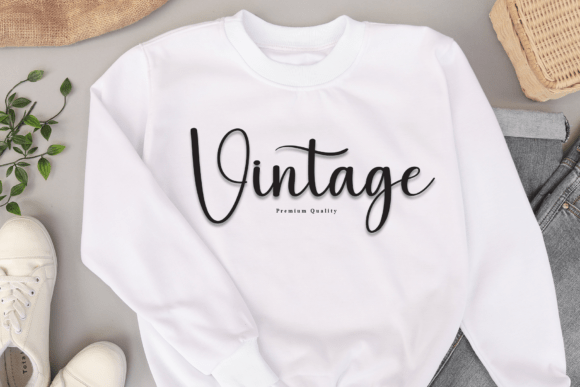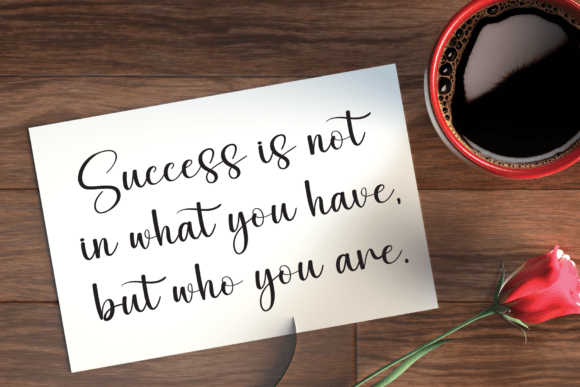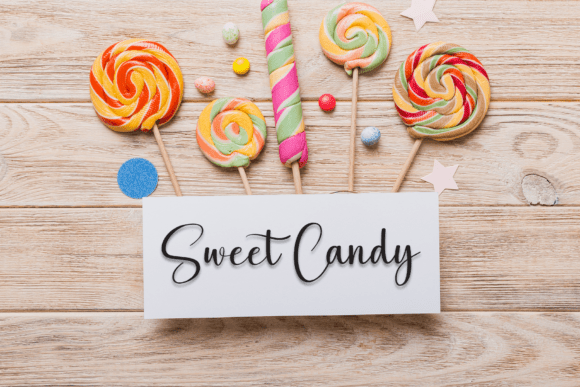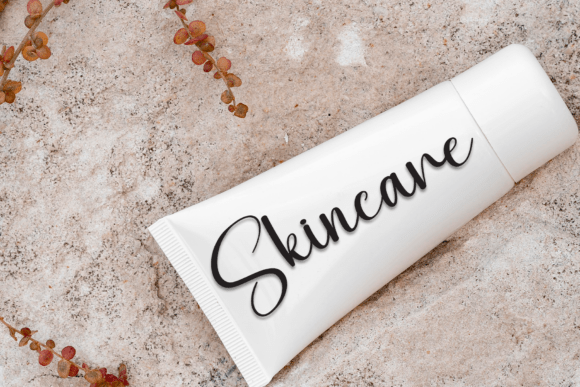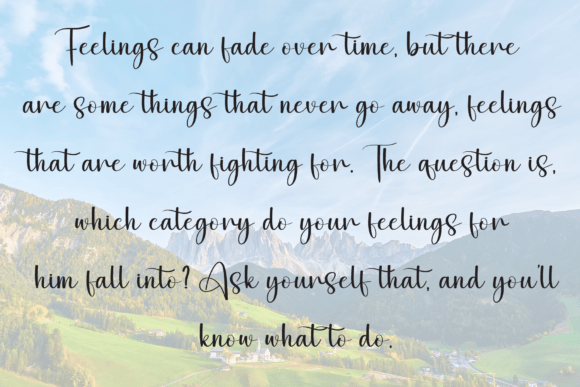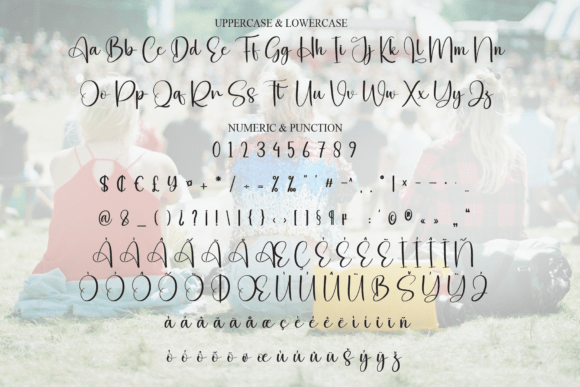
The Perfect Blend of Style and Playfulness: Bestival Font
Have you ever been working on a design project and suddenly, the perfect font pops into your mind? That’s exactly what happened to me when I stumbled upon the Bestival Font. It was love at first sight – its fluid strokes and charming curves seemed to dance on the page, making me want to use it in every project I had in the works.
Bestival Font is a stylish handwritten script font that effortlessly blends modern elegance with a playful touch. Whether you’re designing a logo, packaging, or invitation, this typeface adds a personal feel to your work, making it truly special. As a designer, you know how valuable it is to have a font that can convey warmth, sophistication, and creativity – and that’s exactly what the Bestival Font delivers.
Bestival Font Key Features
- Unique Characteristics: The font features a distinctive, hand-drawn aesthetic with intricate details and a bold, playful feel.
- Font Style: The font comes in a range of styles, including regular, bold, italic, and bold italic, offering flexibility for designers.
Bestival Font Review
Overall, I’m impressed with the Bestival Font. It’s a beautiful, elegant script font that’s perfect for adding a touch of sophistication to your designs. ✨
- Unique and stylish design: Bestival Font has a distinct, cursive feel that sets it apart from other fonts.
- High-quality rendering: The font is well-made and looks great at various sizes and resolutions.
- Excellent for titles and headings: Bestival Font is perfect for adding a touch of elegance to your headings and titles.
However, there are a few limitations to consider. ⚠️
- May be difficult to read at small sizes: Bestival Font can be challenging to read at very small sizes, so be sure to test it at different sizes before using it in your design.
- Limited language support: The font may not support all languages or character sets, so be sure to test it thoroughly before using it in a multilingual design.
Overall, I’m happy with Bestival Font and would recommend it to designers looking for a high-end, elegant script font. It’s a great choice for titles, headings, and other design elements where a touch of sophistication is desired.
Tips for Getting the Most Out of Bestival Font
Experiment with different font sizes and styles to create visual interest. Use the font in combination with other design elements, such as images and graphics, to create a unique look. Consider using the font for headings and titles to add emphasis.
The Bestival Font is suitable for a variety of design applications, including:
- Music festival branding and marketing materials
- Event promotion and advertising
- Music and art-inspired designs
- Summer-themed designs and merchandise
Alternatives to Bestival Font for Designers
Playfair Display is a luxurious and elegant script font, ideal for creating a high-end feel in designs. It features intricate details and flourishes, making it perfect for titles, headings, and other prominent text elements. When to use: Luxury branding, high-end advertising, and exclusive events.
Comparison to Bestival Font: While Bestival Font has a more playful and whimsical feel, Playfair Display is more sophisticated and refined. Bestival Font is better suited for festivals and events with a more casual atmosphere, whereas Playfair Display excels in high-end settings.
What is the font size and resolution for optimal display of Bestival Font?
For optimal display, it is recommended to use Bestival Font at a minimum size of 12 points in print and 14 points in digital formats. The optimal resolution for printing Bestival Font is 300 DPI, while for digital display, a resolution of 72 DPI is recommended.